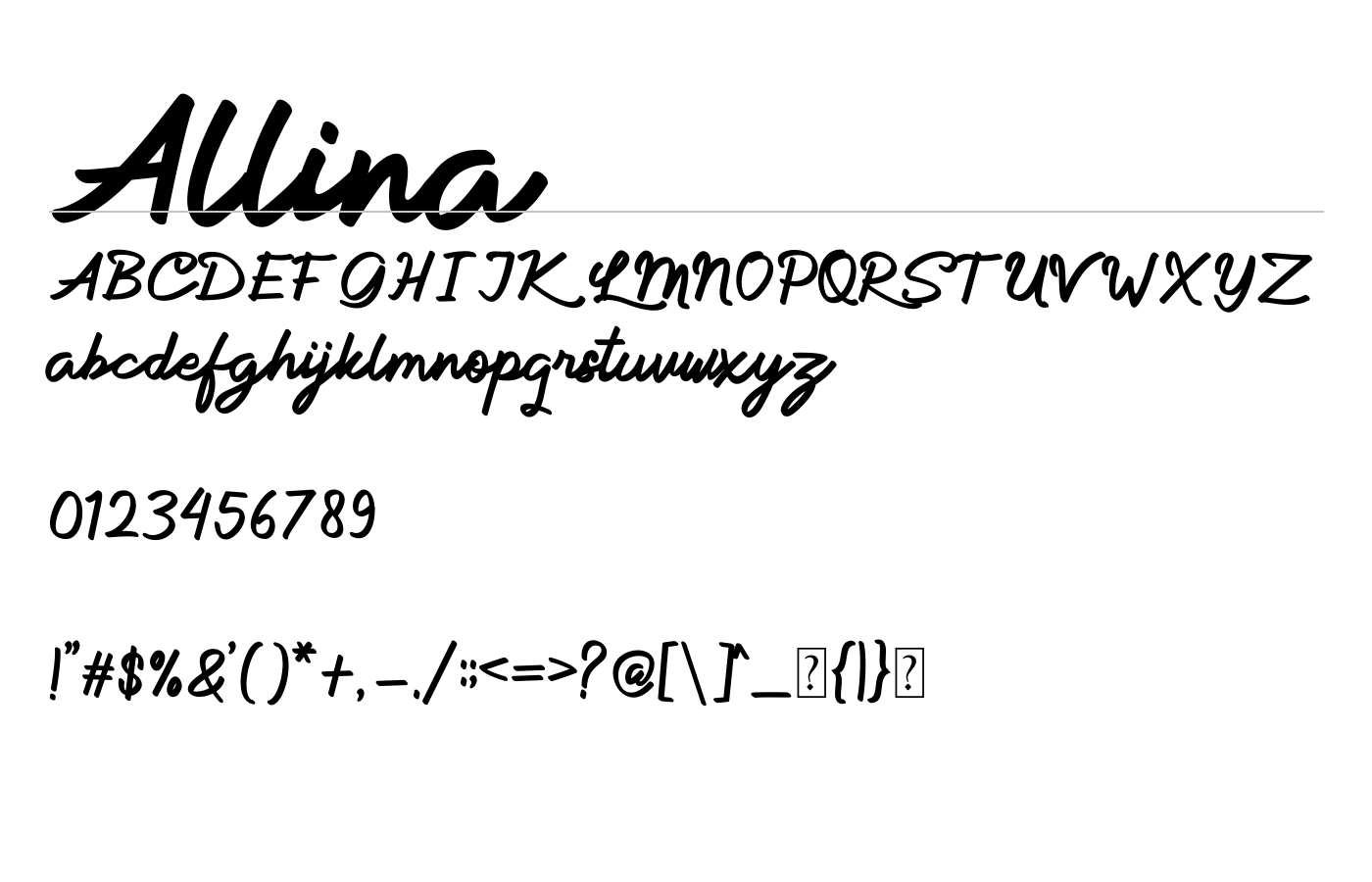
Allina is a lively and smooth script font that mimics natural handwriting with a playful yet elegant feel. Its moderate contrast and flowing letterforms make it ideal for personal branding, invitations, and creative projects that seek a warm, approachable, and stylish appearance. This font works best in headlines and display uses where its charming personality can shine.
Allina Font
About Allina Font
| Font family | Allina Font |
| Designer | Ahmad Muslimin |